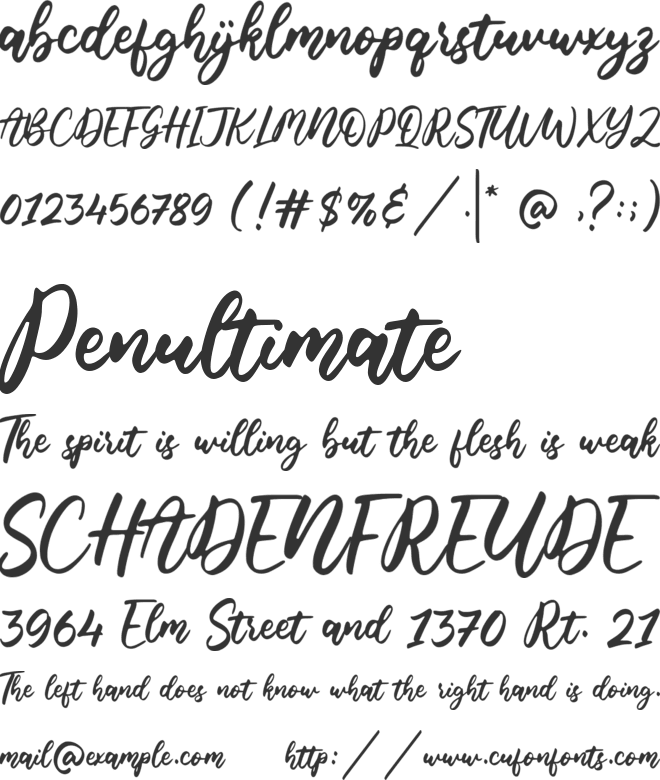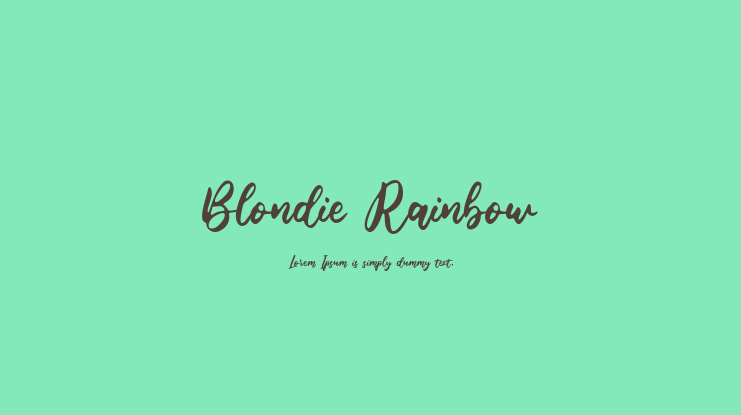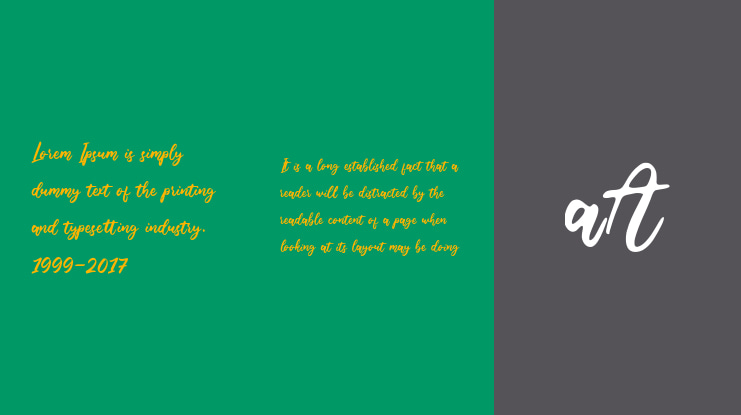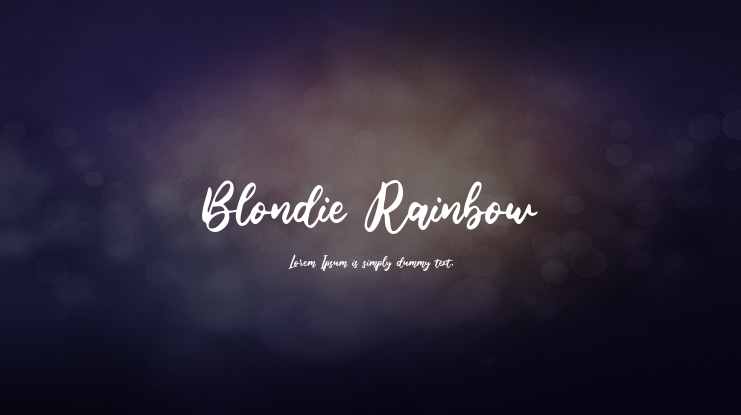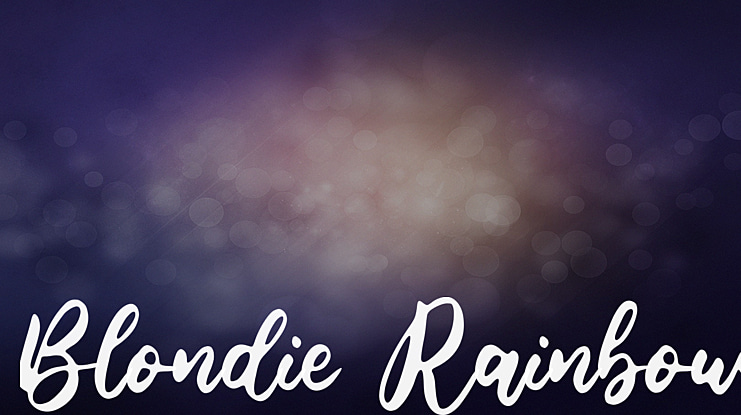
Blondie Rainbow Font
Balpirick Studio
Introducing by Balpirick Studio.
Proudly Present, Blondie Rainbow Font.
Blondie Rainbow is a Modern Calligraphy Font.
Blondie Rainbow is a lovely and timeless handwritten font. It is the best choice for creating eye catching logos, branding and quotes. Every letter has a unique and beautiful touch, which will make your design come alive!